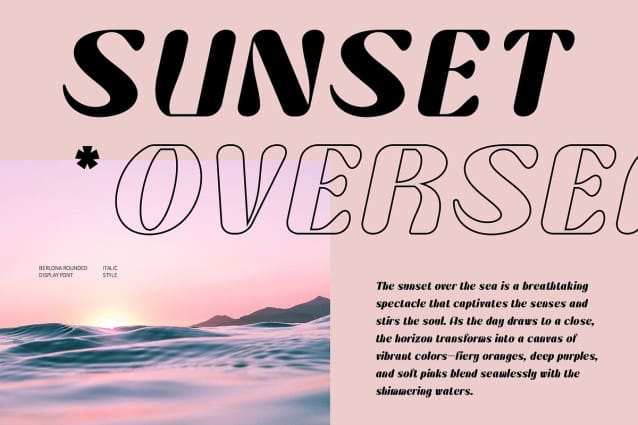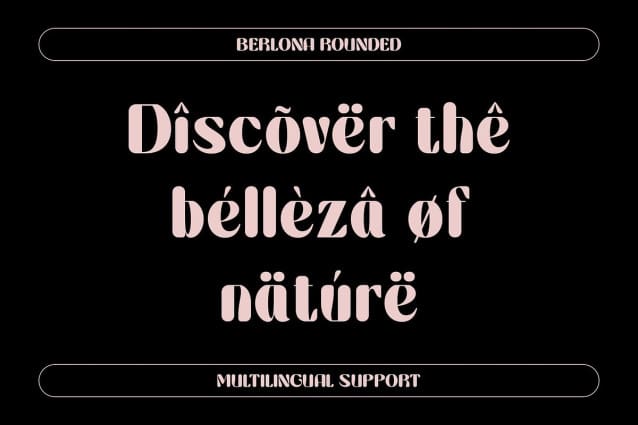
Berlona Rounded Font
Berlona Rounded Font is a captivating sans-serif font that showcases a bold, rounded shape, exuding a warm and inviting retro vibe. Its soft lines and strong proportions create an approachable aesthetic, making it perfect for projects that aim to evoke feelings of nostalgia and familiarity. The charming roundness of the letterforms lends a friendly character, inviting viewers to engage with the design.
Perfect for Nostalgic Themes This font is specifically designed to highlight nostalgic themes, making it an ideal choice for a variety of applications. Whether you’re creating posters, branding materials, or promotional content, Berlona Rounded adds a delightful and classic touch that resonates with audiences. Its retro character captures the essence of bygone eras while maintaining a contemporary flair, ensuring it feels fresh and relevant.
Versatile Applications Berlona Rounded is versatile enough to fit seamlessly into different design contexts. Its bold presence makes it suitable for eye-catching headlines, while its readability ensures that it works well in body text as well. From vintage-inspired advertisements to modern branding projects, this font enhances the overall visual appeal and communicates messages with a charming authenticity.